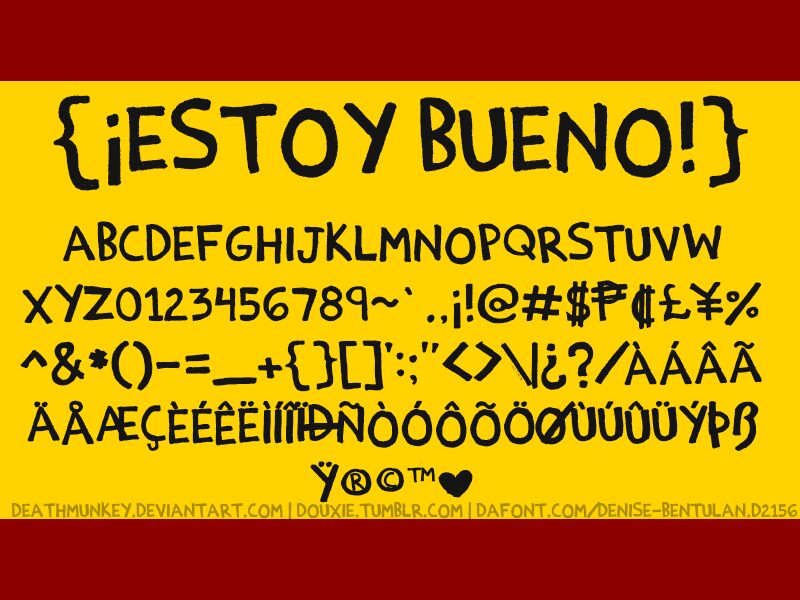
Estoy Bueno! by Denise Bentulan is a free comic display font with broad hand-drawn capitals, a dry inked surface, and the loose stance of quickly painted signs. Uneven stroke widths, blunt corners, and shifting proportions keep the alphabet lively, with rounded letters leaning against sharper neighbors and dark patches collecting along the edges.
It can turn a comic cover into part of the illustration, echoing drawn outlines and expressive artwork. That same informal construction suits children's publishing, snack packaging, and community event posters for young readers, families, or audiences drawn to bright, cheerful graphics with unmistakably homemade lettering and artwork.